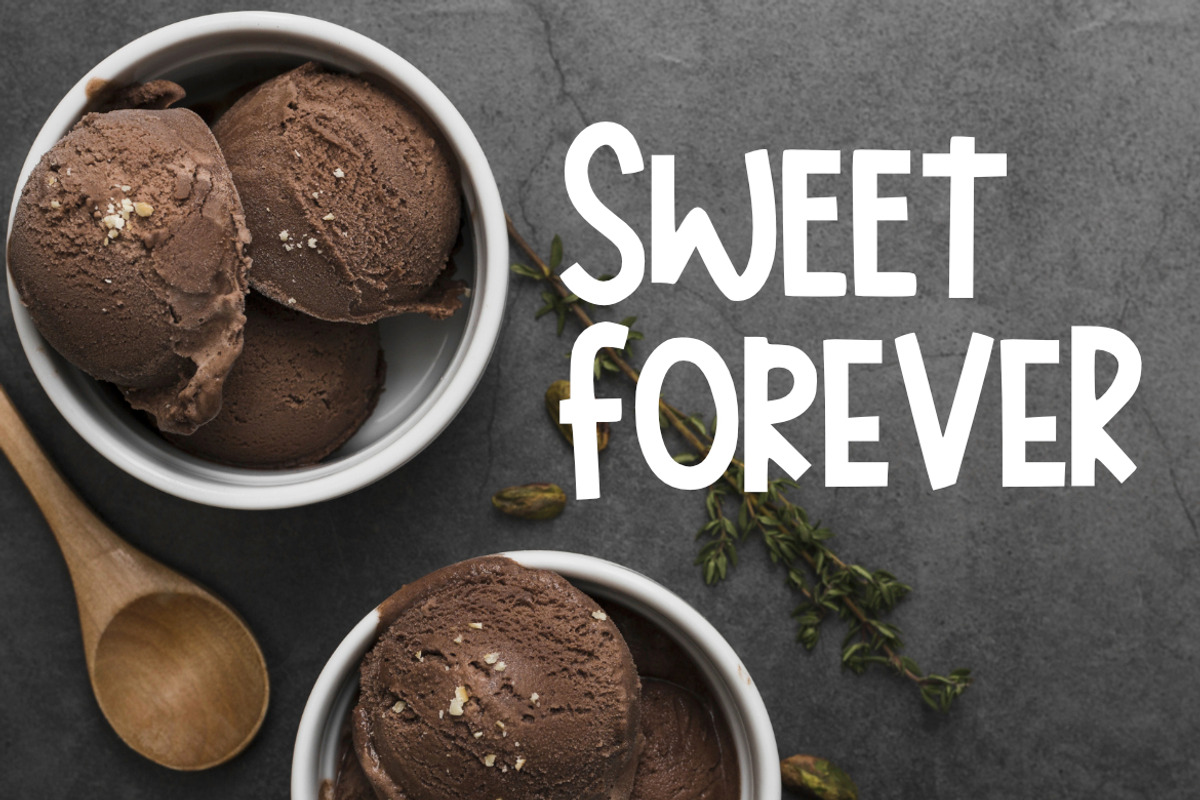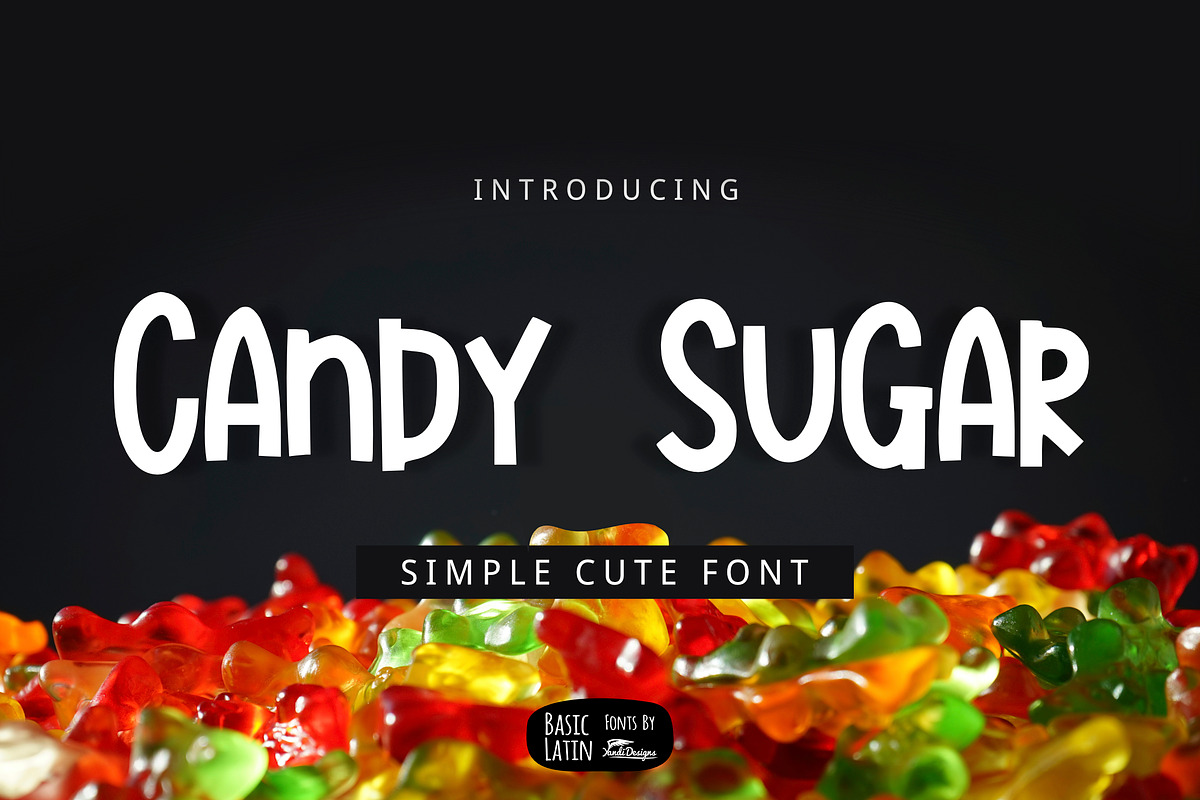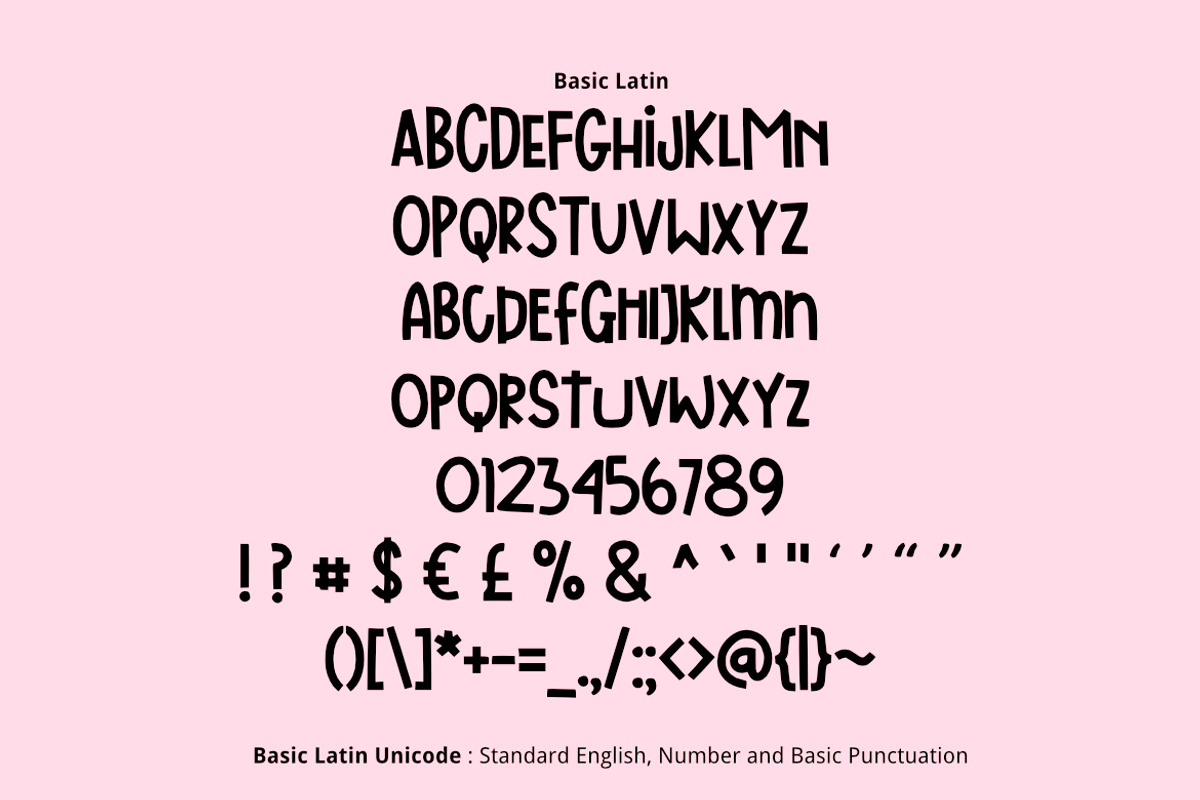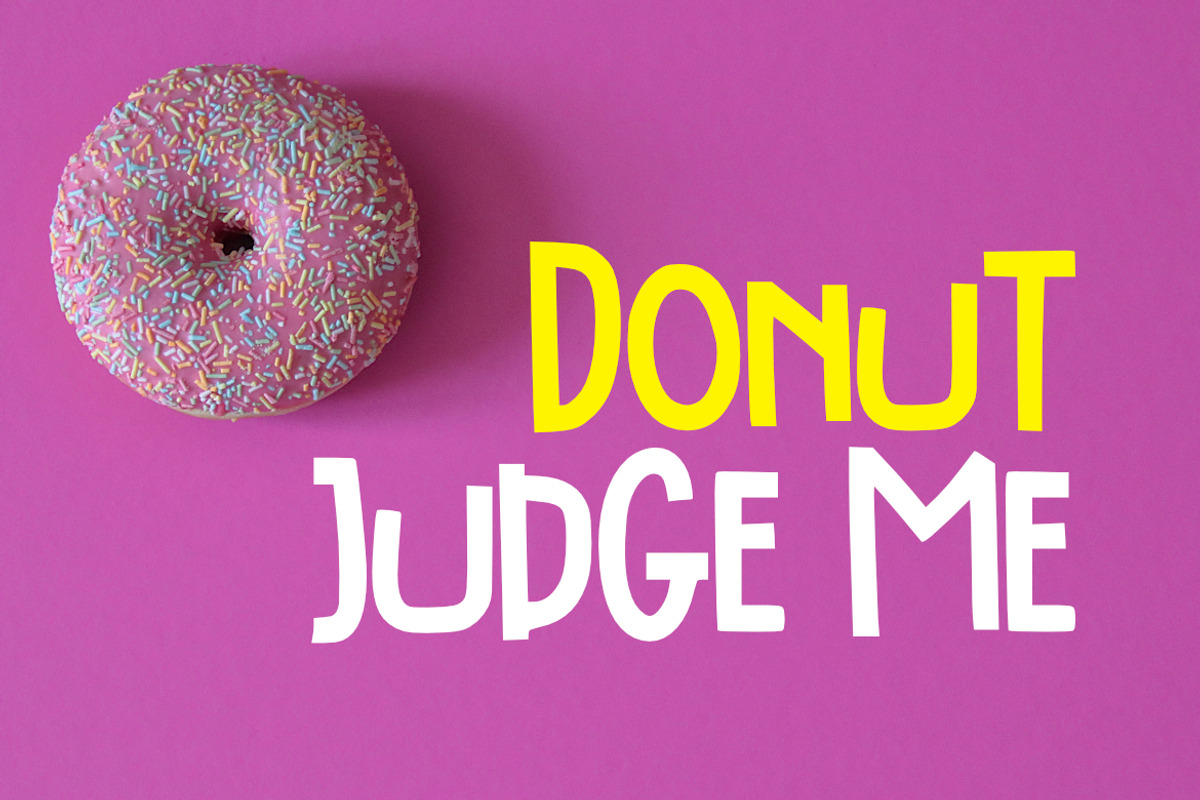
Candy Sugar Font
Candy Sugar Font is simple cute multipurpose handmade font, suitable for many project children book, quotes, logo , heading , title etc.
Candy Sugar Font by YandiDesigns fits naturally into Branding, posters, packaging, typography.